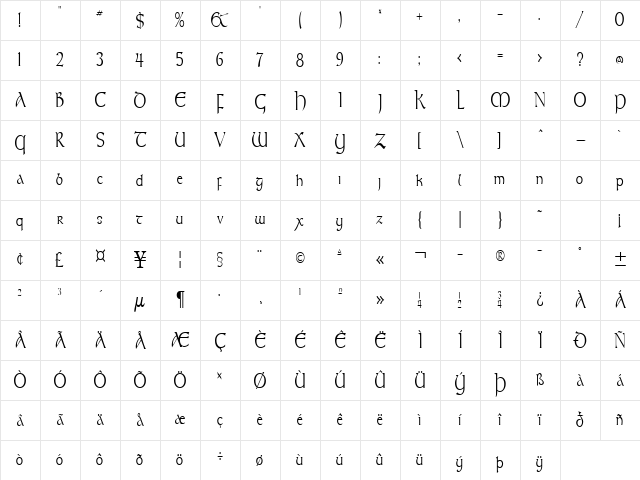
Kelt Thin Normal Free Font
Kelt Thin Normal
Design Context for Kelt Thin
Kelt Thin is a composed and adaptable typeface that performs quietly and consistently across a wide range of design contexts. Its slender proportions lend an understated elegance to any composition.